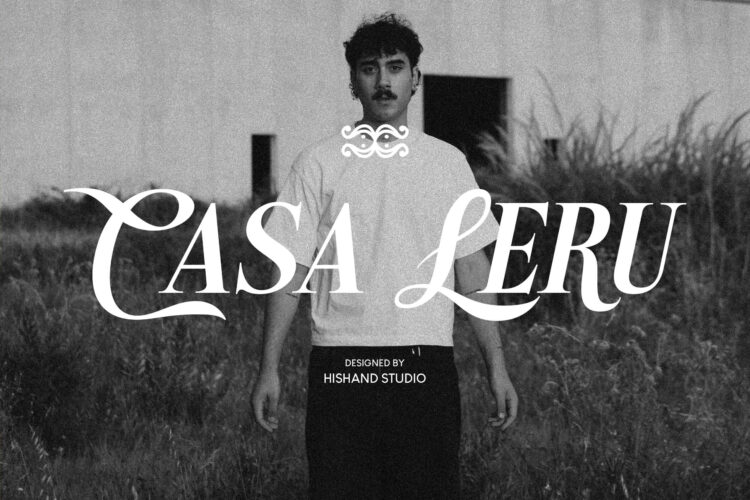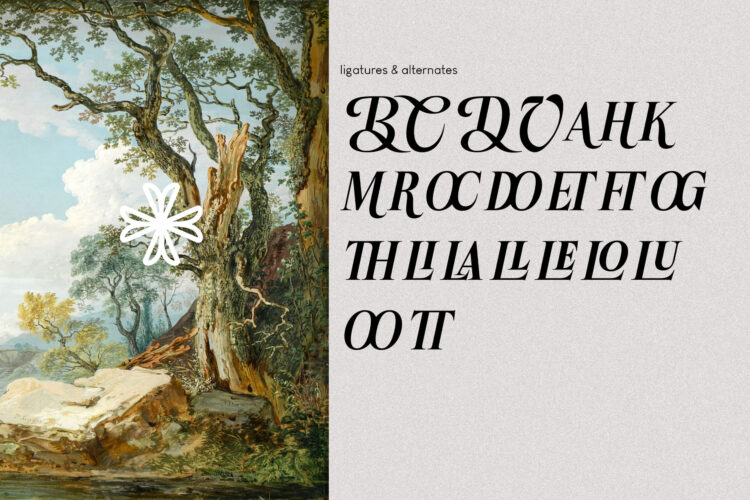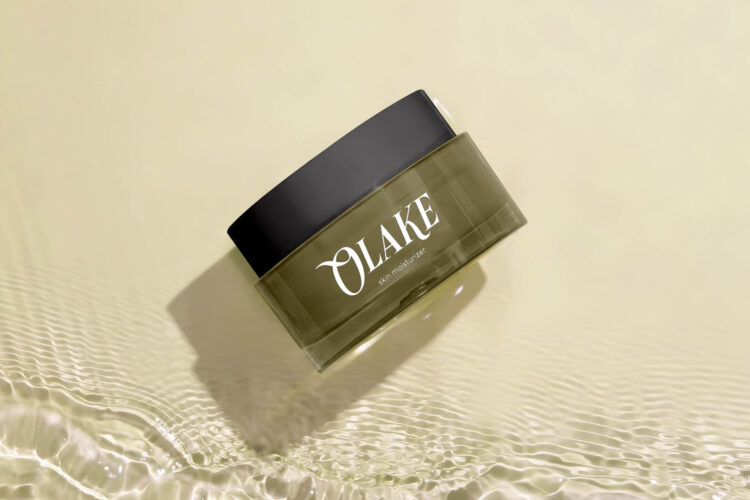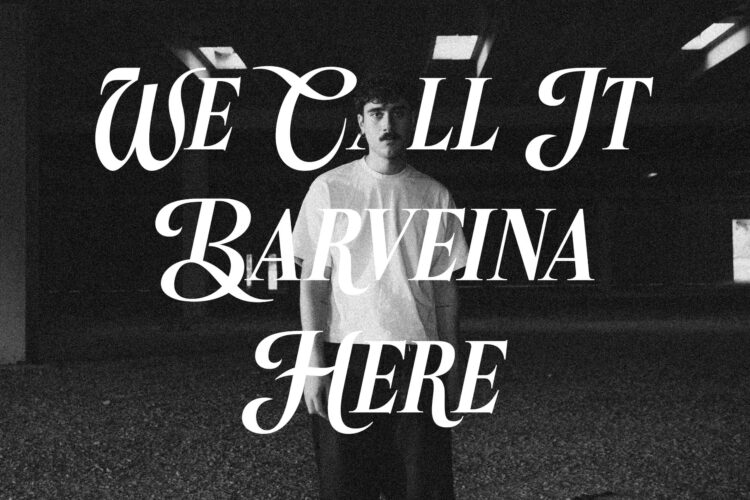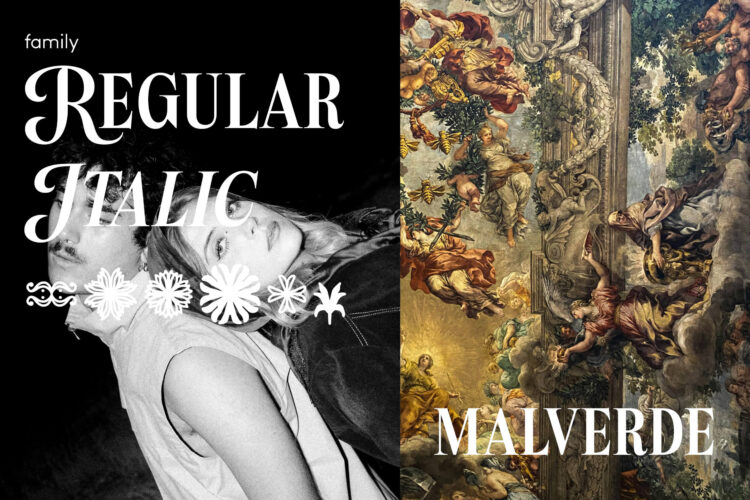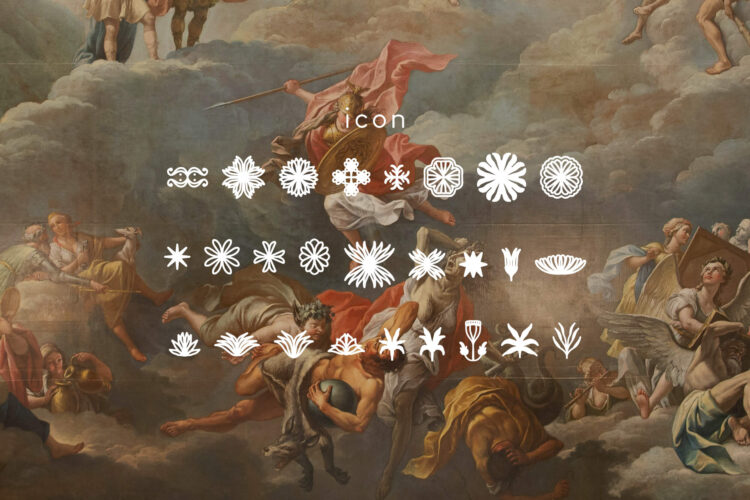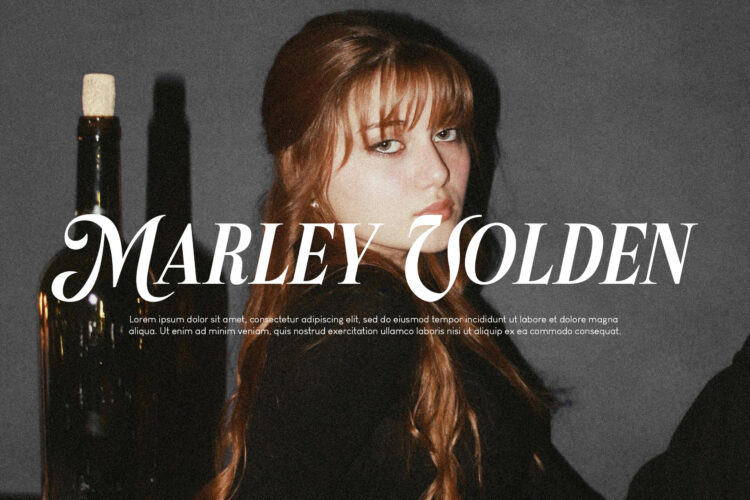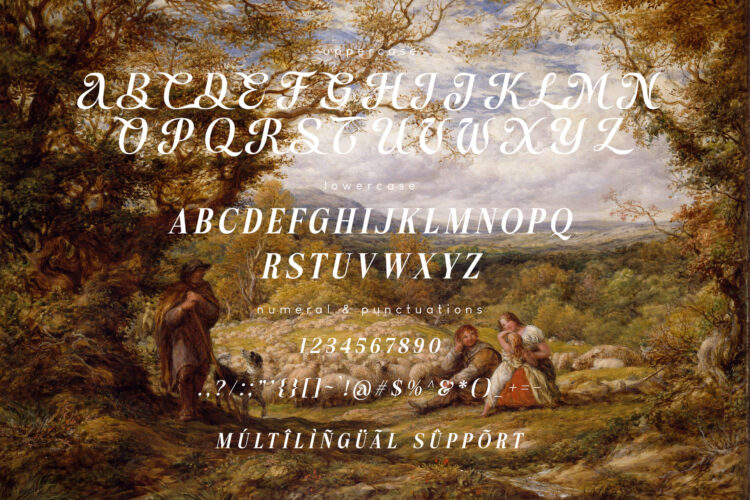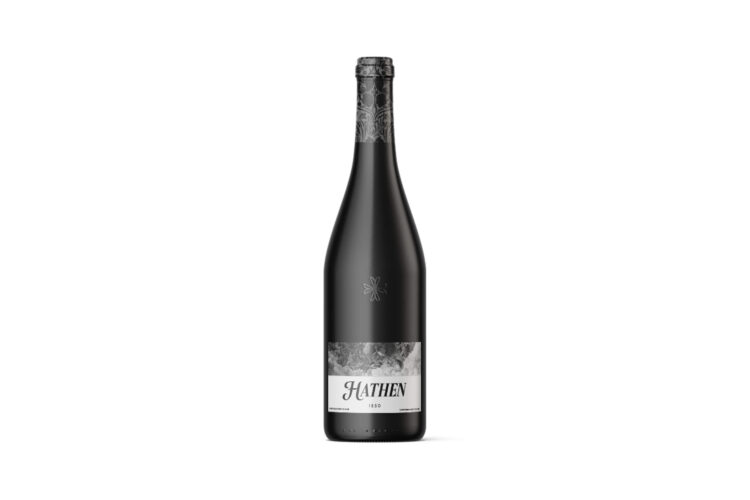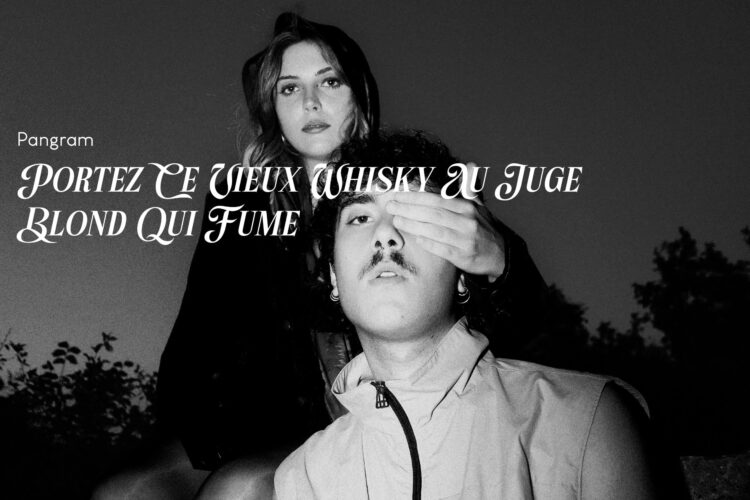
Casa Leru: An Intersection of Heritage and Modernity
Casa Leru Elegant Font is a sophisticated typeface that strikes a flawless balance between the structured elegance of a Serif and the fluid grace of a Script. Designed to evoke a sense of high-end luxury, it merges sharp, refined stems with delicate, handwritten flourishes. This intentional contrast creates a visual rhythm that feels both architectural and organic, making it an ideal choice for brands that want to communicate a deep sense of heritage paired with a modern, poetic soul. In an era where design often feels mechanized, Casa Leru brings back the human touch without sacrificing professional precision.
The font’s silhouette is defined by tall, slender proportions and a dramatic contrast between thick and thin strokes. This “high-contrast” look captures the “quiet luxury” aesthetic found in premium fashion houses and artisanal craftsmanship. Every character is meticulously crafted to look bespoke; the serifs provide a grounded, historical foundation, while the script-like terminals offer a breathtakingly beautiful flow. It feels like a master calligrapher’s touch applied to a classic printed page, bridging the gap between the traditional and the avant-garde. Whether used for a minimalist logo or a sweeping editorial headline, Casa Leru commands attention with a whisper of timeless class, proving that true power lies in subtlety.
Beyond its striking letters, Casa Leru is built for seamless versatility in the demanding world of luxury design. It is not a “one-note” typeface; rather, it is a multi-faceted tool. From high-end packaging and fine jewelry branding to sophisticated wedding stationery and digital lifestyle journals, it adapts beautifully to any medium that requires a touch of prestige. Its legibility remains intact even as its flourishes dance across the page, ensuring that the brand’s message is never lost in its beauty.
Ultimately, Casa Leru isn’t just a font; it is a statement of elegance. It was designed to make every word feel like an invitation to something exclusive, intimate, and extraordinary. By choosing Casa Leru Elegant Font, you are choosing to tell a story of excellence.
Complete with
- ligatures
- alternates
- regular
- Italic
- icon
- kerning
- multilingual support